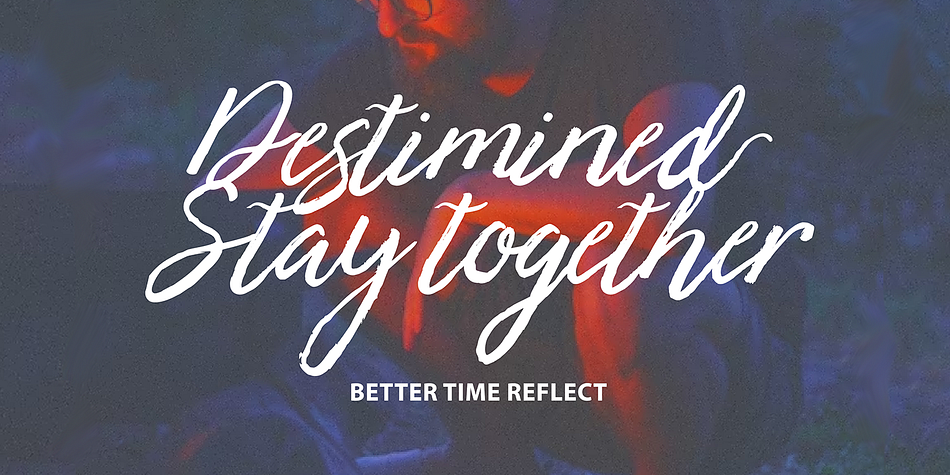
Bearded
Bearded is a historical and script font family published by Gatype.
Bearded Brush handmade, the newest you can get now! With an updated hand brush calligraphy model with special glyphs that have been given a combination of fantasy and handwritten ink. This font will look beautiful on all designs, Wedding designs, branding materials, blog titles, quotes and invitations, business cards.